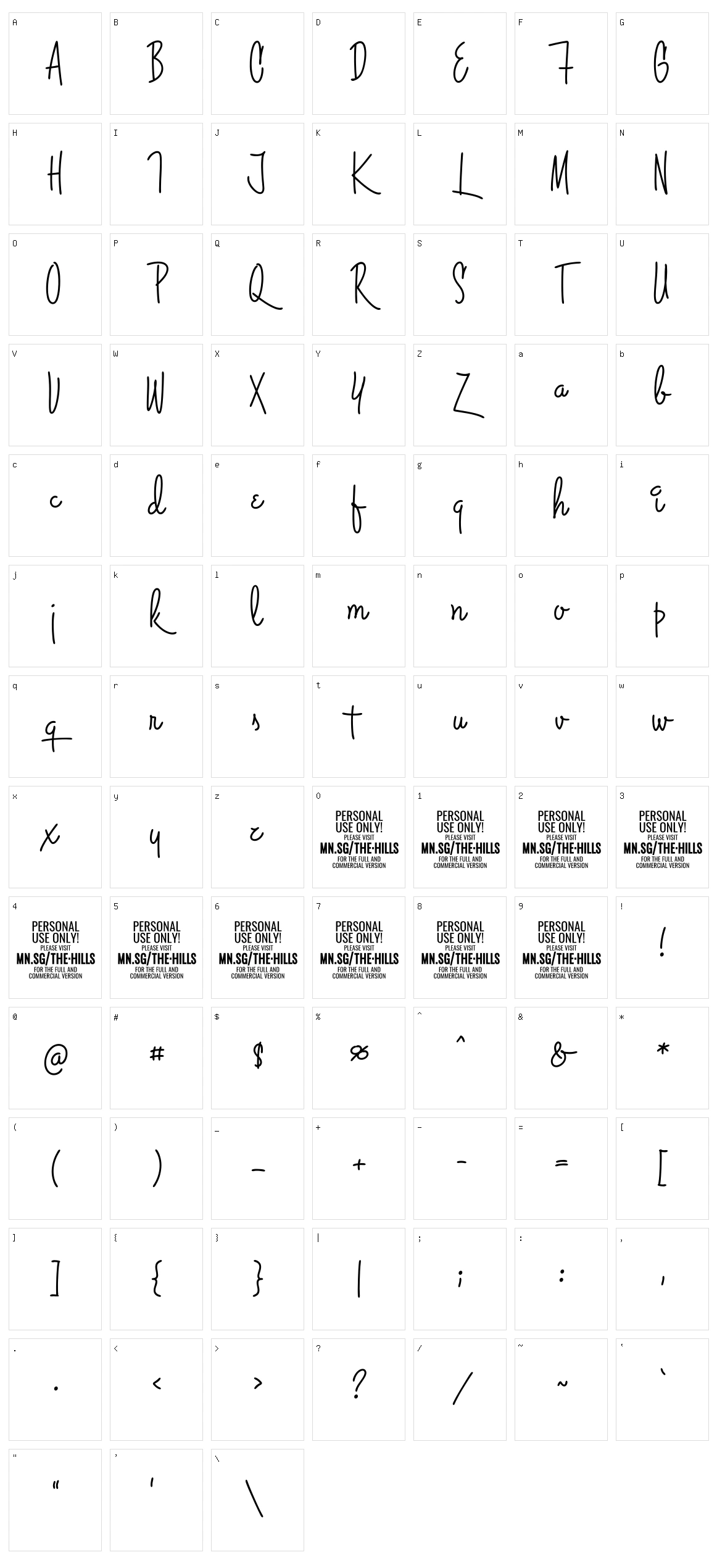
The Hills is a script typeface, perfect for logotypes.
Designed by Måns Grebäck during 2017, this high quality lettering brings you to the sunny fifties.
It is well balanced and has a nice medium weight.
The font contains 350 glyphs and has support for a wide range of languages.